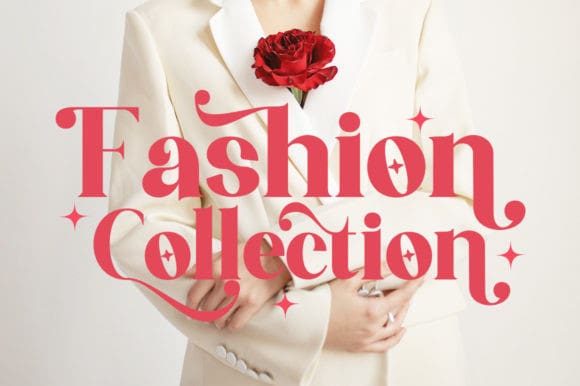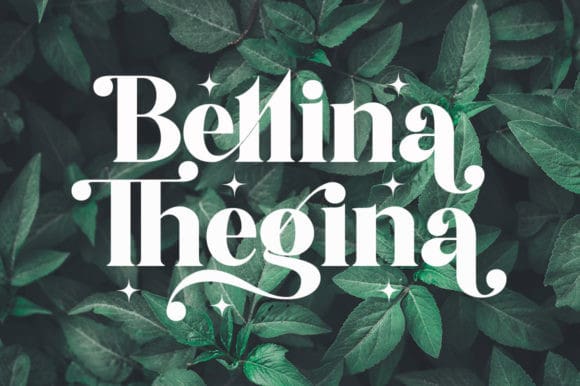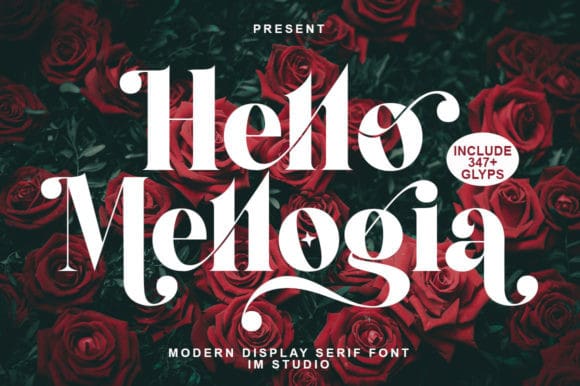
Hello Mellogia Font
Hello Mellogia Font is an elegant, bold and distinct looking serif font. This font is PUA encoded which means you can access all of the glyphs and swashes with ease! Fall in love with its incredibly versatile style and use it to create spectacular designs!